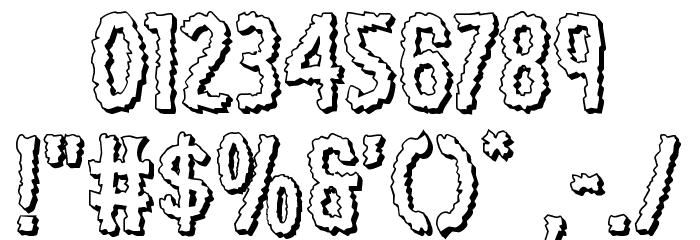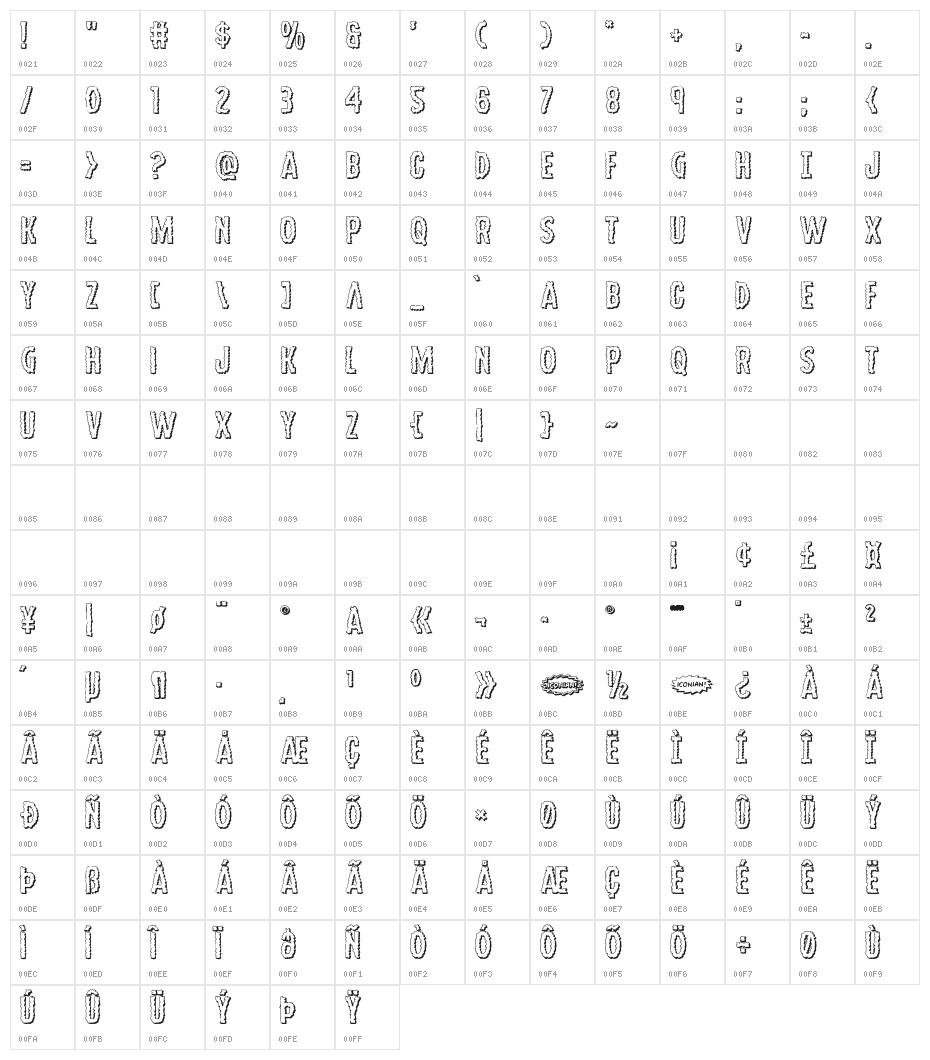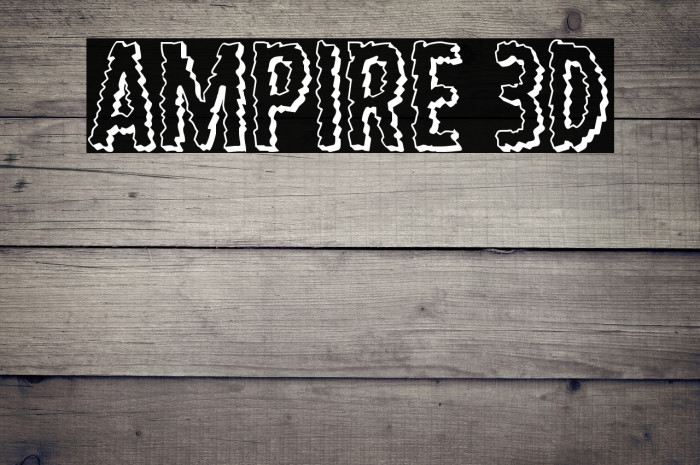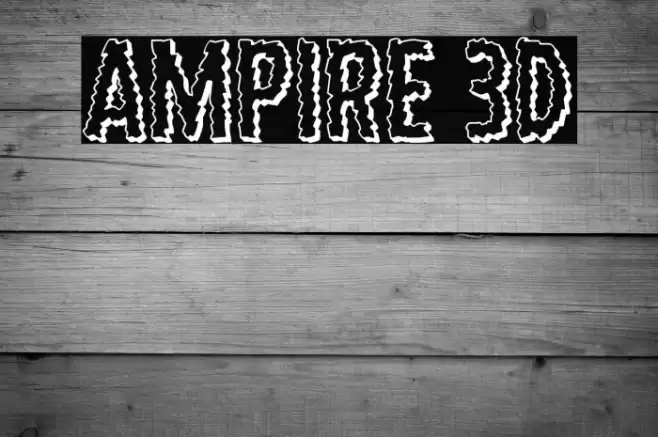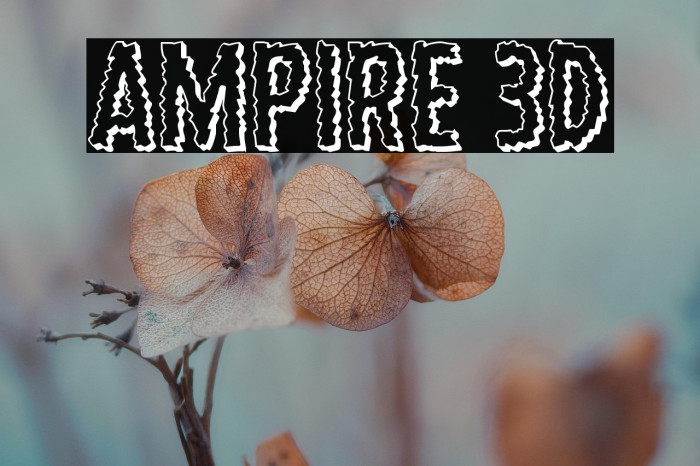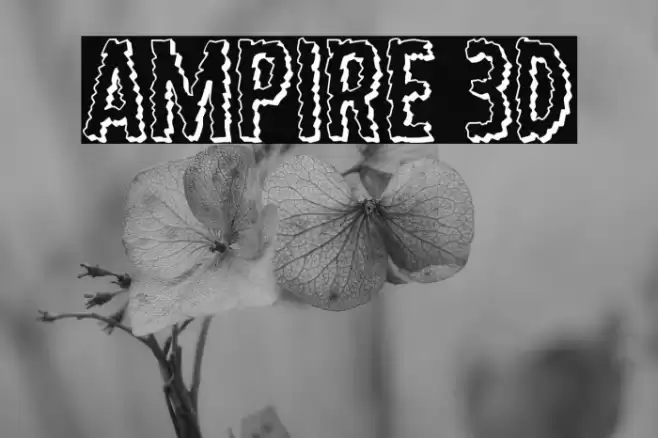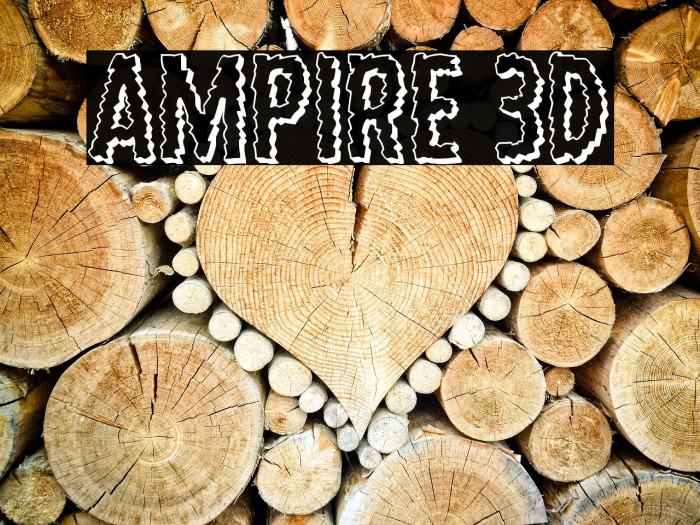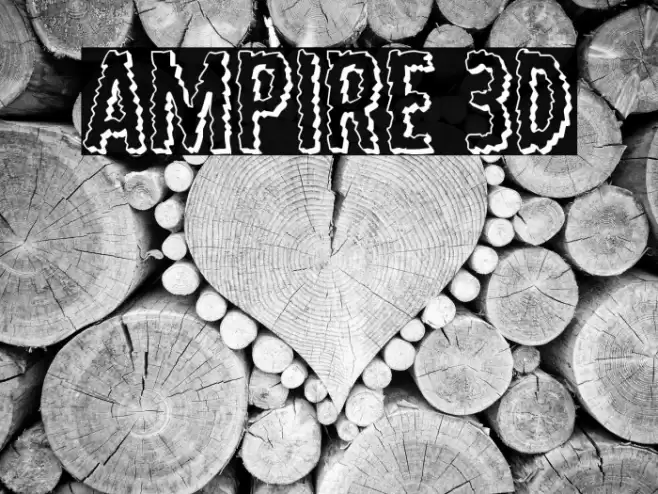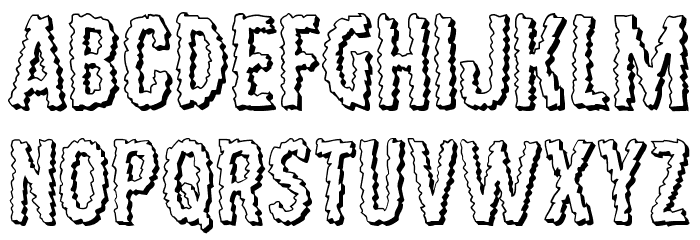
Ampire 3D Font
Ampire 3D Description
This font features a bold and playful 3D effect, with each character outlined in a jagged, cloud-like pattern. The letters are uppercase and have a strong presence, making them ideal for attention-grabbing designs. The numbers and special characters follow the same style, ensuring consistency across all text elements. The font's unique design gives it a whimsical and dynamic appearance, suitable for creative and fun projects.
| Proposed Projects | Ideal for children's book covers, playful posters, event flyers, and creative branding projects. |